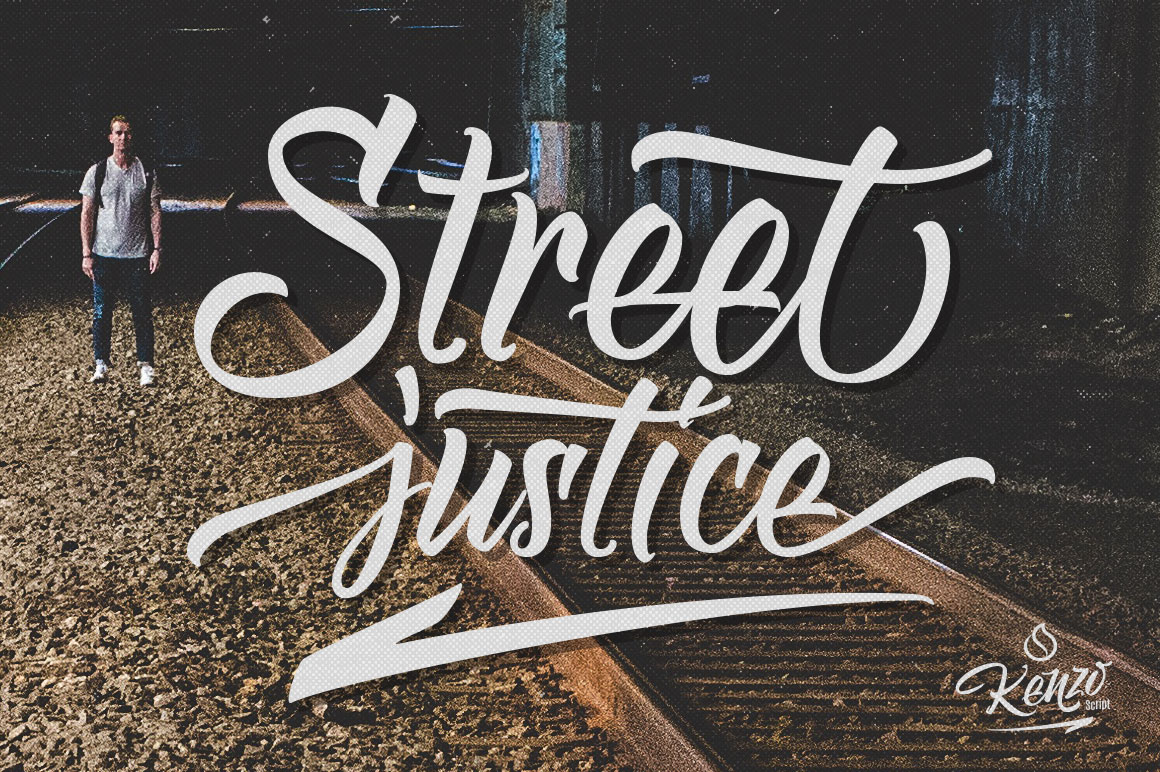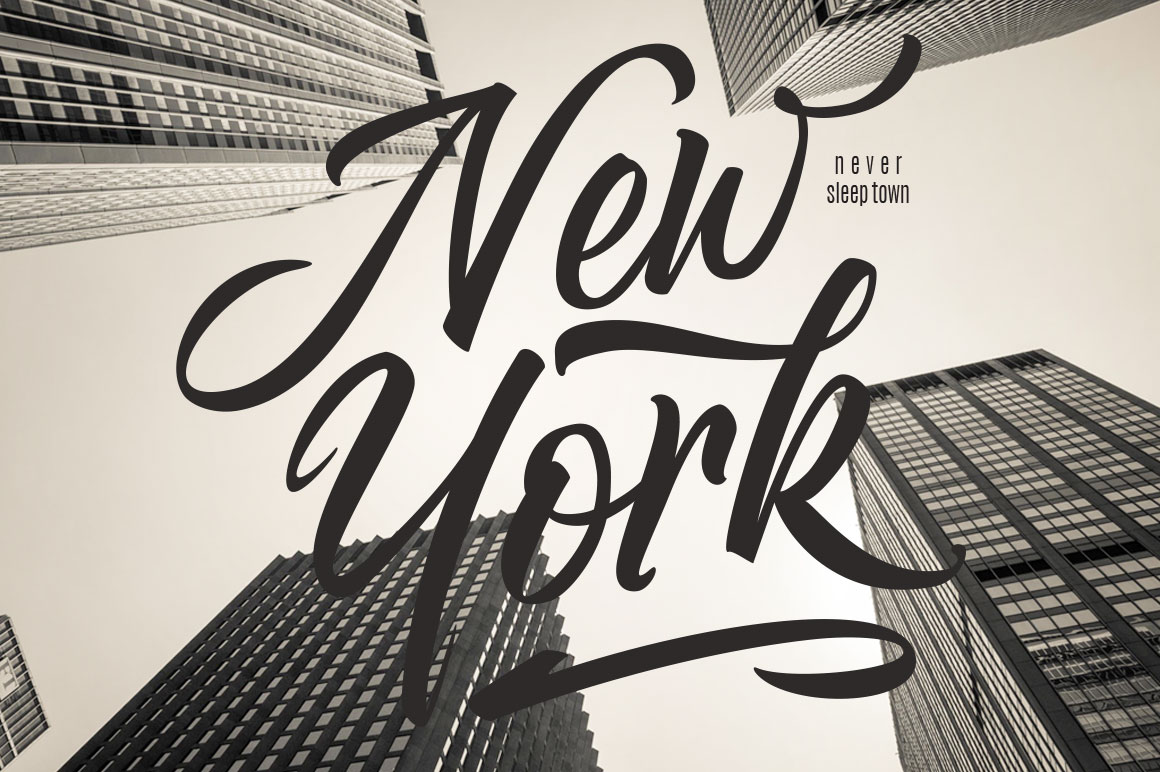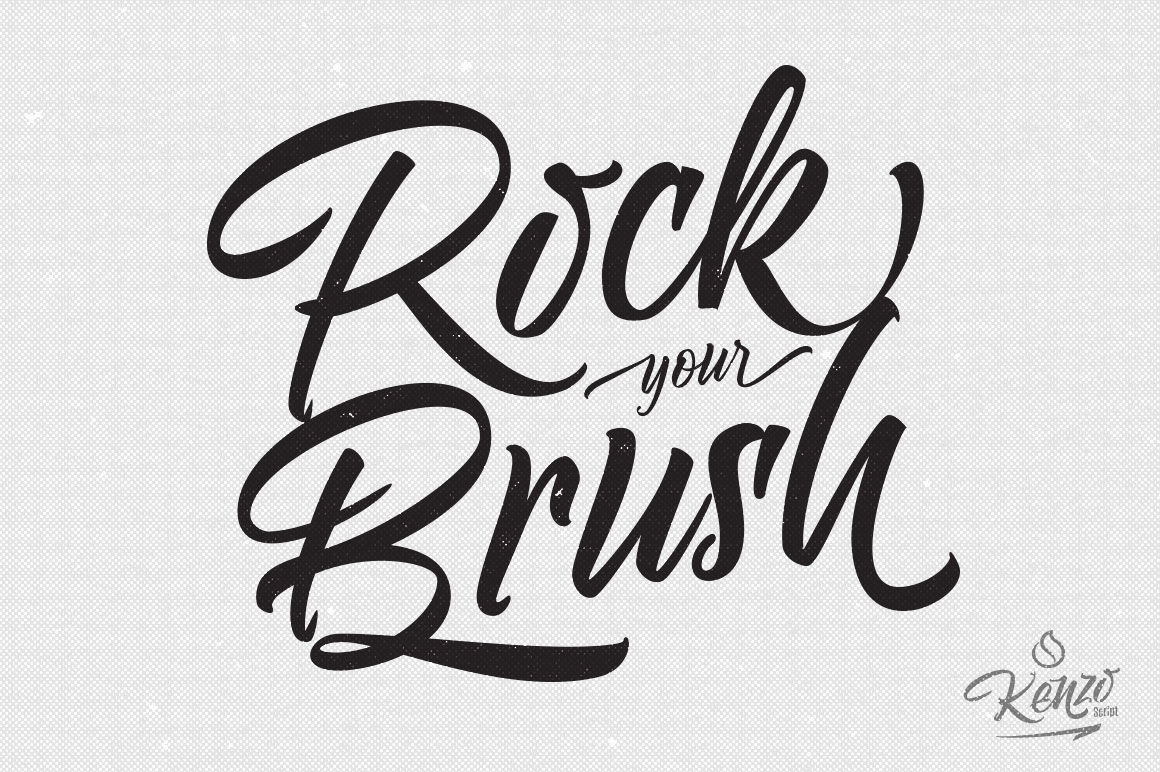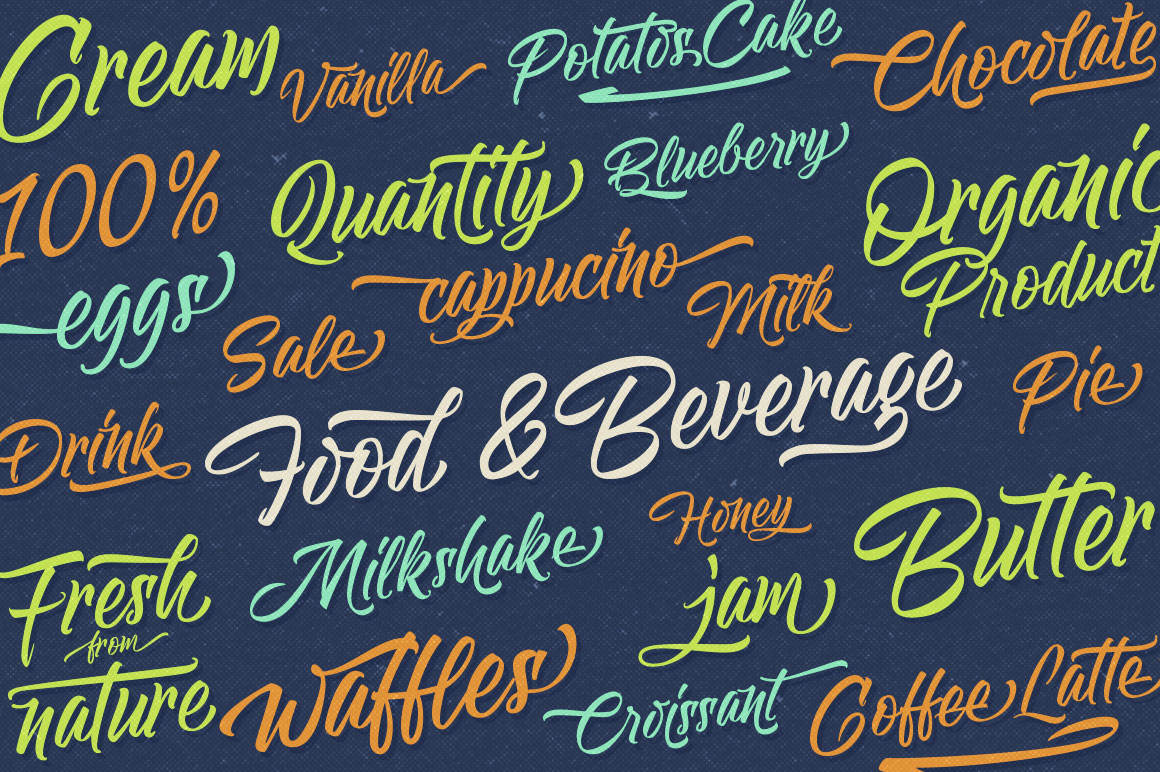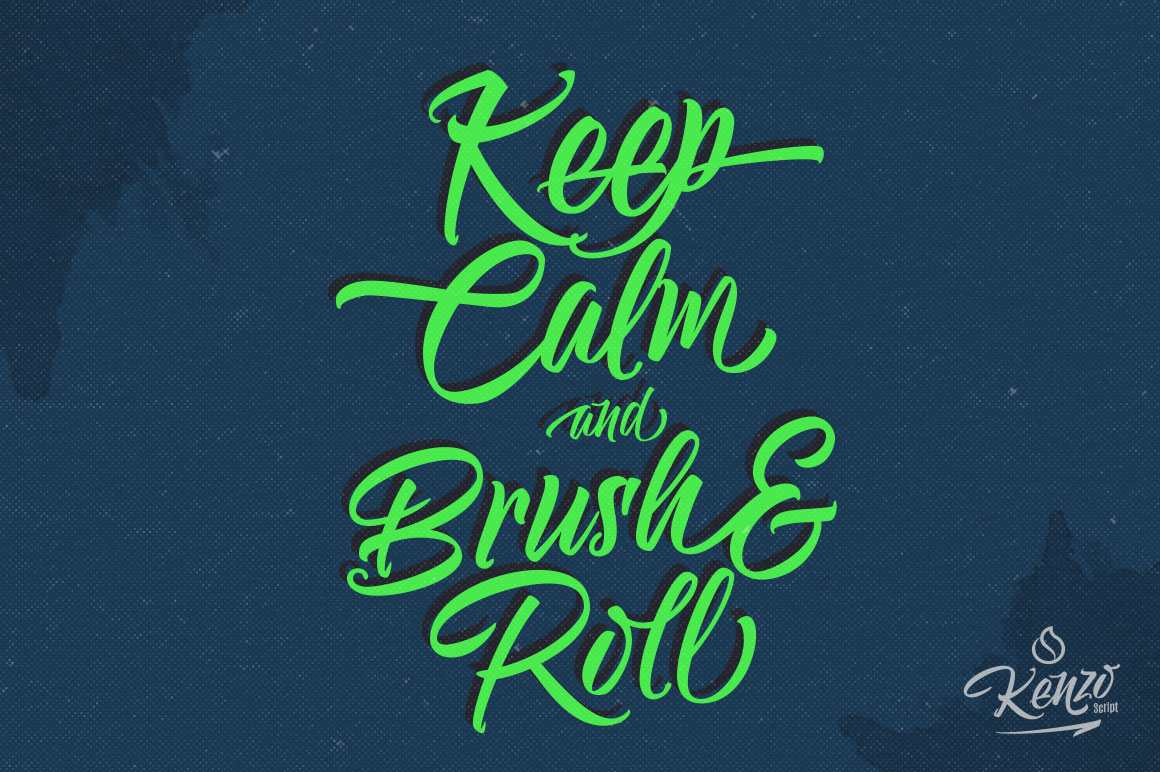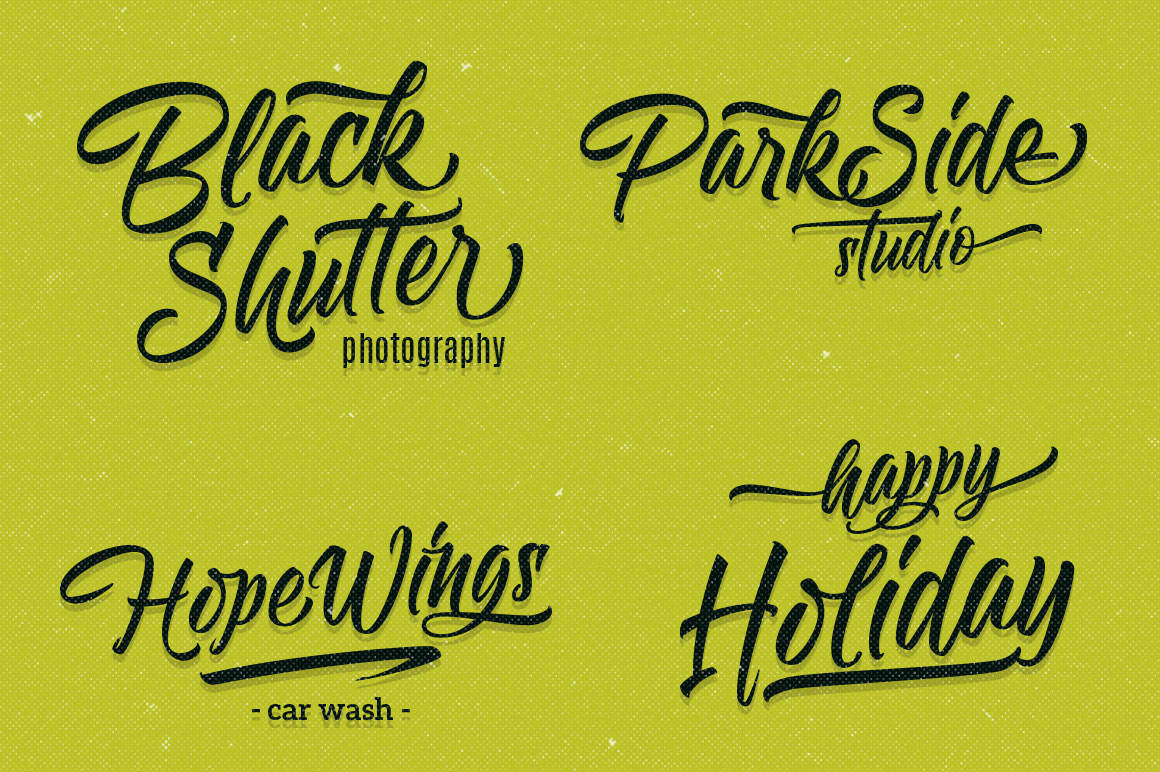
Introduction to Kenzo Script Font Font
Fonts play a crucial role in design, and the Kenzo Script Font font is a typeface that brings both character and versatility to any project. Whether you’re working on a branding project, a website, or a print design, the Kenzo Script Font font offers a unique style that can elevate your work.
Kenzo Script is a stunning handwritten font packed with more than 490 glyphs with 267 alternates.
The Kenzo Script font is the type of font that will work in endless projects and can be used repeatably .
Key Features of Kenzo Script Font Font
Why Choose Kenzo Script Font Font?
The Kenzo Script Font font is more than just a typeface – it’s a design tool that helps you communicate your message with style and clarity. Its unique character set and versatile design make it suitable for a wide range of applications, from elegant invitations to bold headlines.
With its carefully crafted letterforms and balanced proportions, the Kenzo Script Font font ensures readability and visual appeal across all mediums.
What makes Kenzo Script Font font special?
The Kenzo Script Font font stands out with its unique design, exceptional readability, and versatility across various design applications.